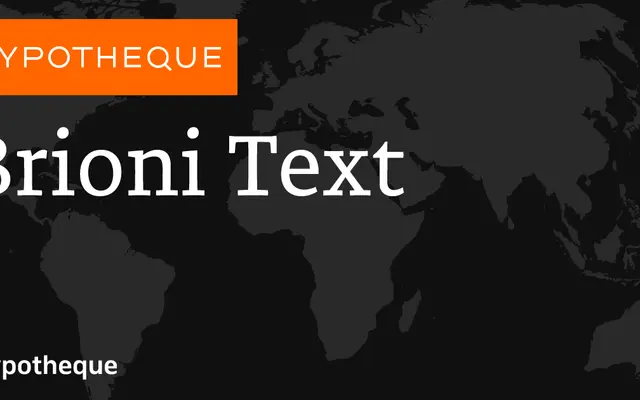
Brioni Text specimen from Typotheque
A humanist text serif from Typotheque offered in six weights with matching italics across two optical-size subfamilies.
The family splits into Brioni Text and Brioni, suggesting optical-size differentiation between body copy and display settings. Six weights from Thin to Bold are available in both upright and italic across each subfamily, giving designers a disciplined range for long-form editorial work. The palette of city-named specimen settings hints at broad multilingual intent, though confirmed script coverage is not detailed on the page.
Brioni Text is a humanist serif designed for extended reading at text sizes, with a range of weights and matching italics suggesting careful optical calibration for editorial and body copy use.